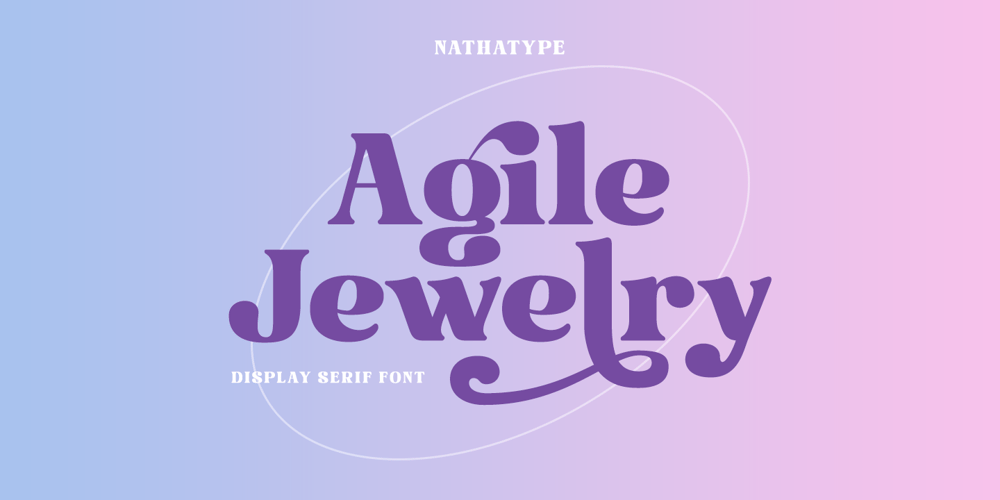
Agile Jewelry Font Family was designed by Donis Miftahudin and published by Nathatype. Agile Jewelry contains 1 styles and family package options. Agile Jewelry a stylish, modern display serif font to give you informal, modern impressions. The characteristics of this font are the extra hooks on the letters’ edges and some of the letters have curvy ending wipes. The thick and thin lines on every letter are clearly visible. For a legibility reason, apply this font for big-sized texts instead of the body texts.Features: Stylistic Sets Ligatures Multilingual Supports PUA Encoded Numerals and Punctuations Agile Jewelry fits for various design projects, such as posters, banners, logos, magazine covers, quotes, headings, printed products, merchandise, social media, etc. Find out more ways to use this font by taking a look at the font preview.Thanks for purchasing our fonts. Hopefully, you have a great experience using our font. Feel free to contact us if you require more information when you are dealing with a problem. Thank you. Happy designing.